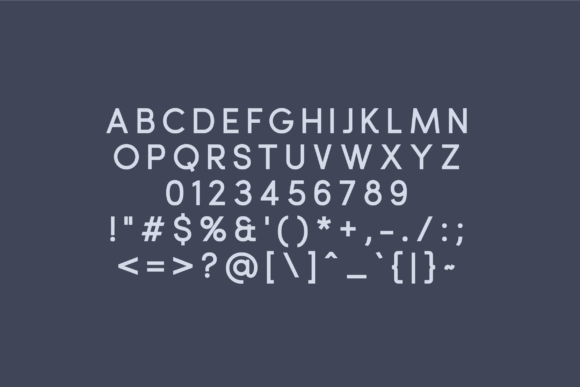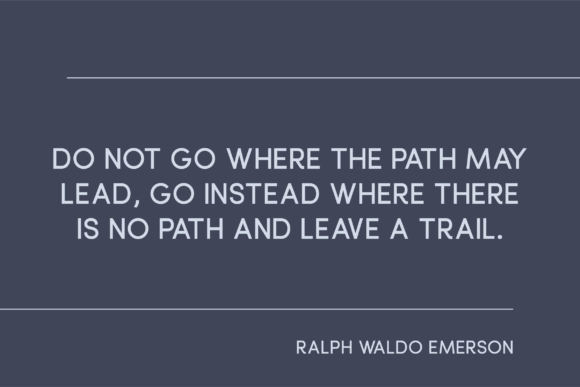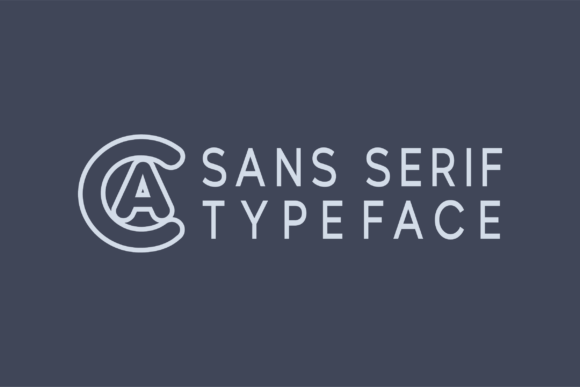
Introducing Eraserella Font: The Ultimate Choice for Bold and Modern Designs
In the world of design, fonts play a crucial role in conveying messages, evoking emotions, and creating lasting impressions. For designers and crafters looking for a bold, modern, and impactful typeface, Eraserella Font is an excellent choice. This all-caps sans-serif font is specifically designed to deliver clean, striking visuals that elevate any design project.
What is Eraserella Font?
Eraserella Font is a bold, modern, all-caps sans-serif typeface that exudes confidence and style. Its clean lines, precise curves, and carefully crafted letterforms make it perfect for a wide range of design applications, from logos and headlines to posters, packaging, and digital content. Whether you’re working on branding, tech, fashion, or creative projects, Eraserella Font brings a strong, professional look that is sure to leave a lasting impact.
Key Features of Eraserella Font
- Bold and Modern Design: Eraserella Font boasts a bold, modern aesthetic that is perfect for designers looking to create striking visuals.
- All-Caps Sans-Serif: The font’s all-caps design and sans-serif style ensure clarity and readability, making it ideal for headlines, titles, and short texts.
- Clean and Impactful Visuals: Eraserella Font is designed to deliver clean, impactful visuals that elevate any design project.
- Highly Versatile: The font includes standard Latin characters, punctuation, and numerals, making it easy to use and versatile for various design applications.
- Simple to Use: Eraserella Font is simple to use, even for designers who are new to typography or font design.
Use Cases for Eraserella Font
Eraserella Font is an excellent choice for a wide range of design projects, including:
- Logos and Branding: The font’s bold, modern design makes it perfect for logos, wordmarks, and branding projects that require a strong, confident look.
- Headlines and Posters: Eraserella Font is ideal for headlines, posters, and flyers that require a bold, attention-grabbing typeface.
- Packaging Design: The font’s clean lines and precise curves make it suitable for packaging design, including product labels, tags, and packaging materials.
- Digital Content: Eraserella Font is perfect for digital content, including social media graphics, blog posts, and website headers.
- Fashion and Tech: The font’s modern aesthetic makes it an excellent choice for fashion and tech projects that require a bold, stylish typeface.
Why Choose Eraserella Font?
There are several reasons why designers and crafters should choose Eraserella Font for their next design project:
- Unique and Modern Aesthetic: Eraserella Font offers a unique and modern aesthetic that sets it apart from other fonts.
- High Readability: The font’s clean lines and precise curves ensure high readability, even at small sizes.
- Easy to Use: Eraserella Font is simple to use, even for designers who are new to typography or font design.
- Versatile: The font includes standard Latin characters, punctuation, and numerals, making it versatile for various design applications.
In conclusion, Eraserella Font is an excellent choice for designers and crafters looking for a bold, modern, and impactful typeface. Its clean lines, precise curves, and carefully crafted letterforms make it perfect for a wide range of design applications, from logos and headlines to posters, packaging, and digital content. With its unique and modern aesthetic, high readability, and ease of use, Eraserella Font is sure to elevate any design project and leave a lasting impression.